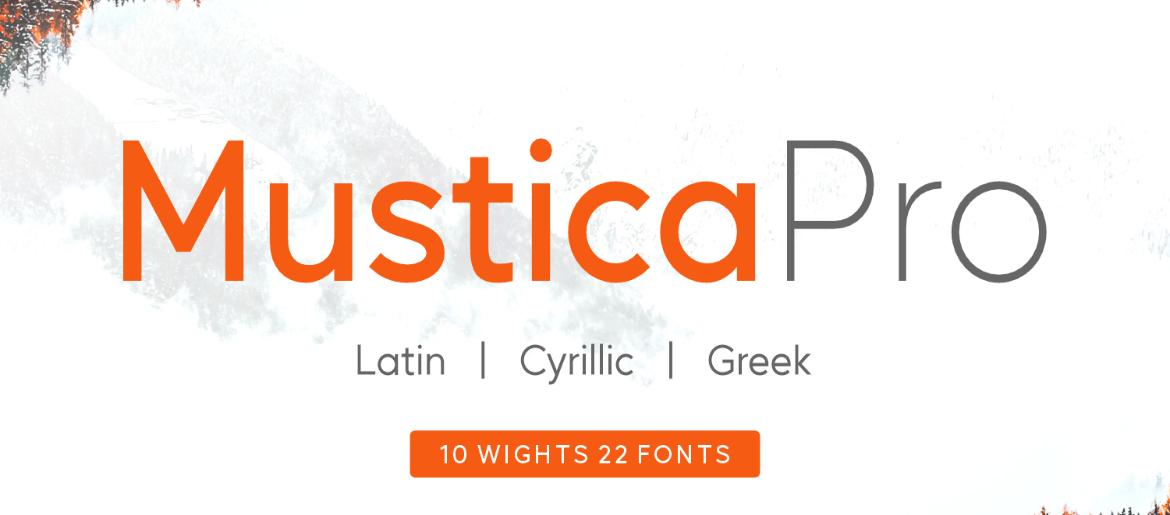
Mustica Pro Font
Mustica Pro font
Mustica Pro Font is a modern sans serif font with a crisp geometric design and clean structure. It offers excellent readability and versatility, supporting Latin, Cyrillic, and Greek languages. Ideal for branding, editorial layouts, interfaces, and digital products, it fits contemporary design needs while pairing well with minimalist aesthetics and curated collections of free fonts for global use.
➤ Font Name: Mustica Pro (S-B)
➤ Designer: Alifinart Studio
➤ Style: Sans Serif